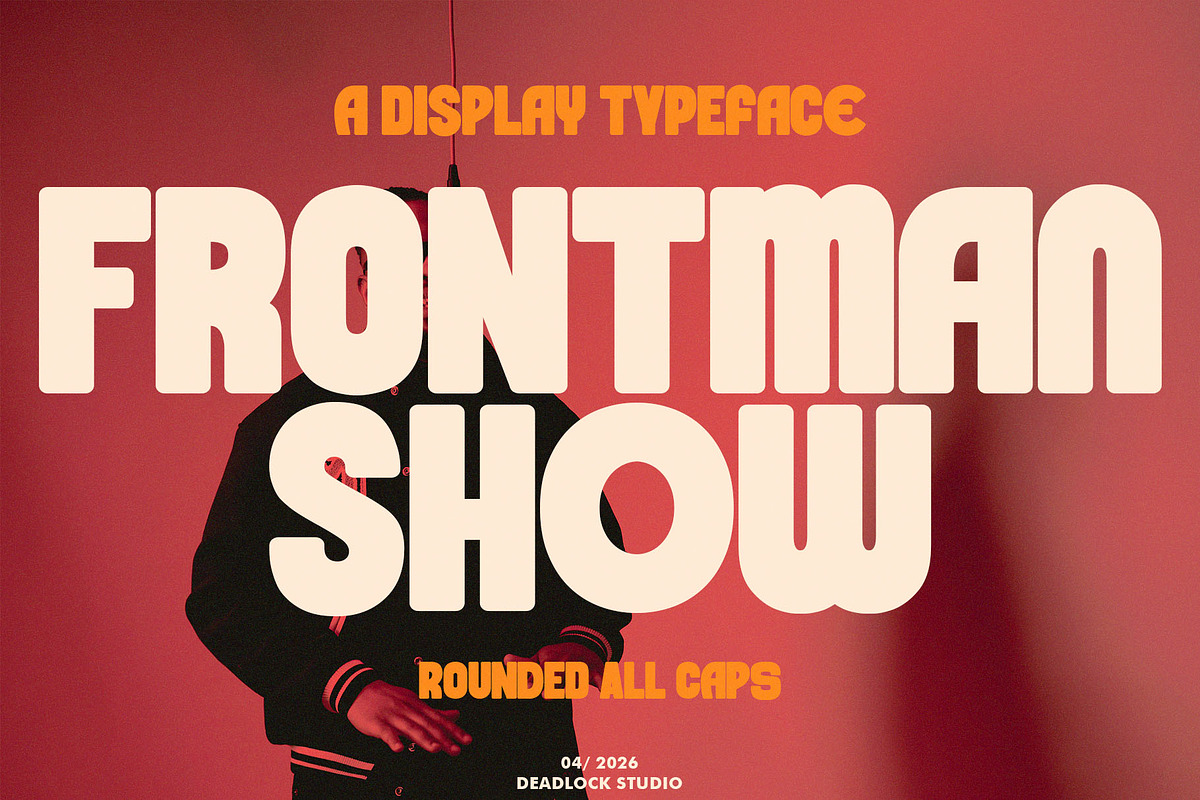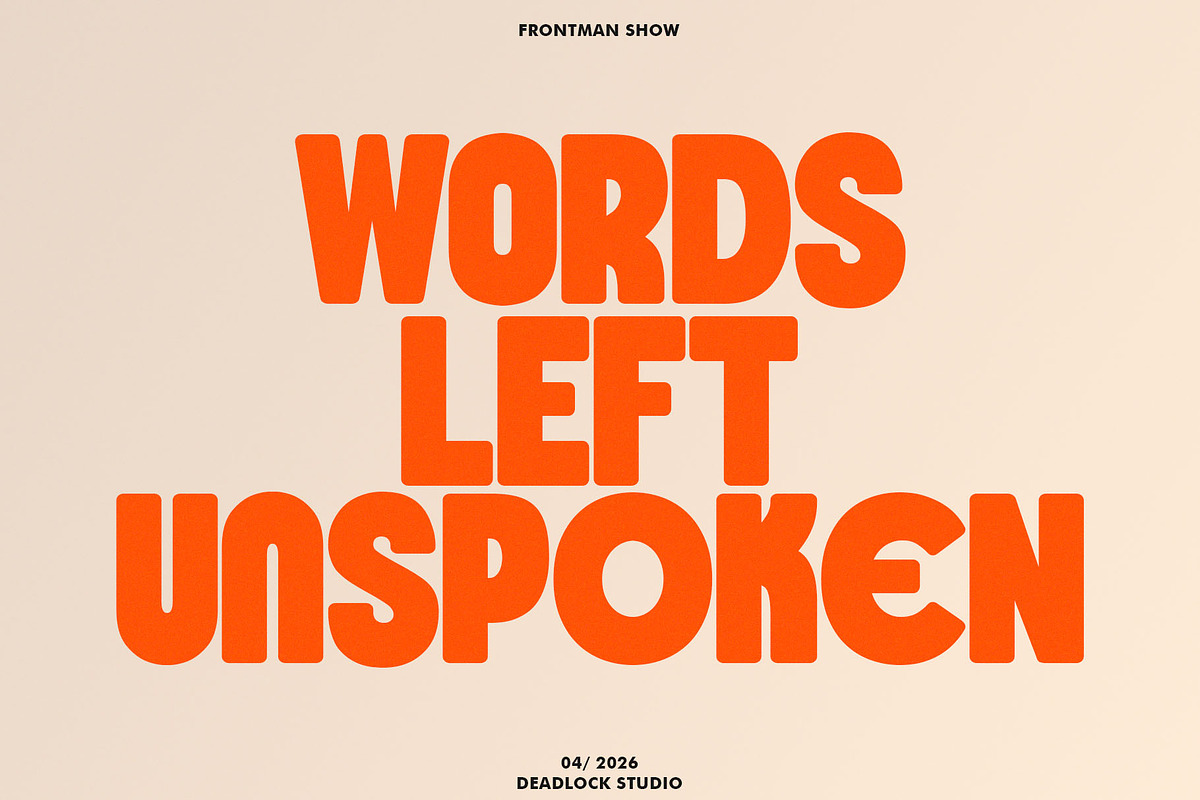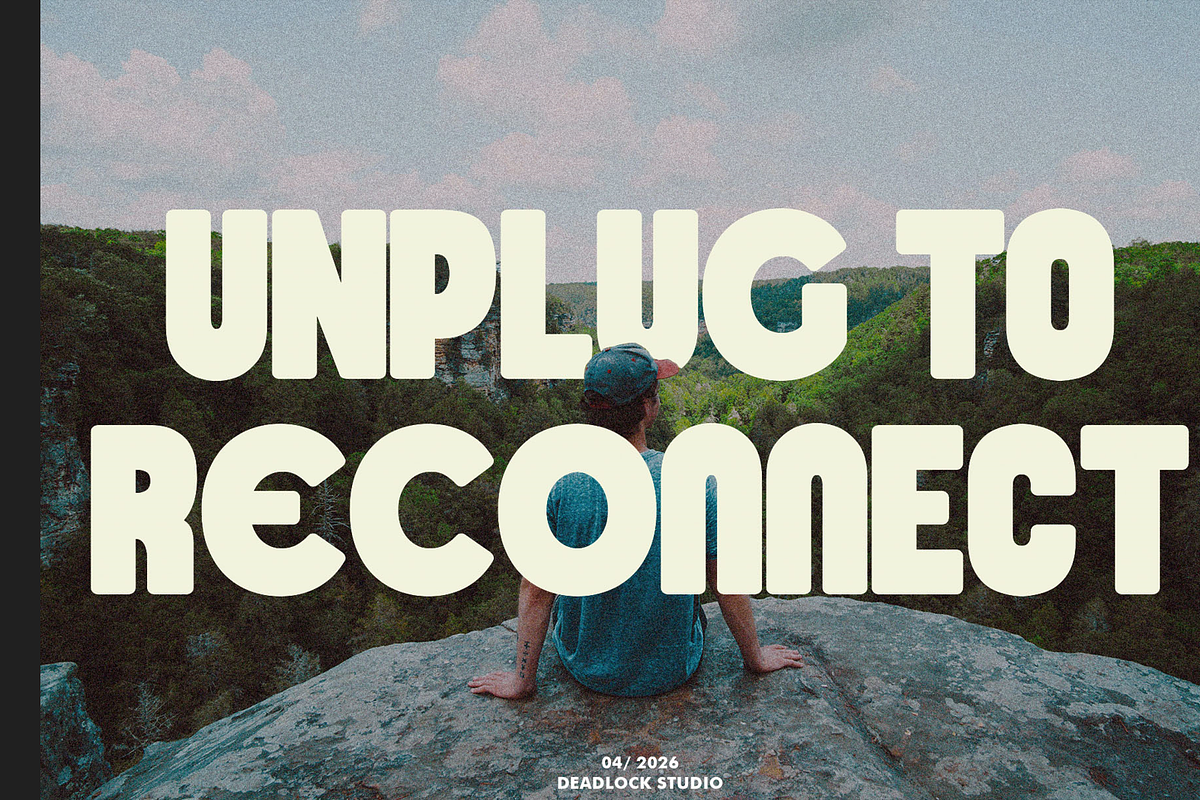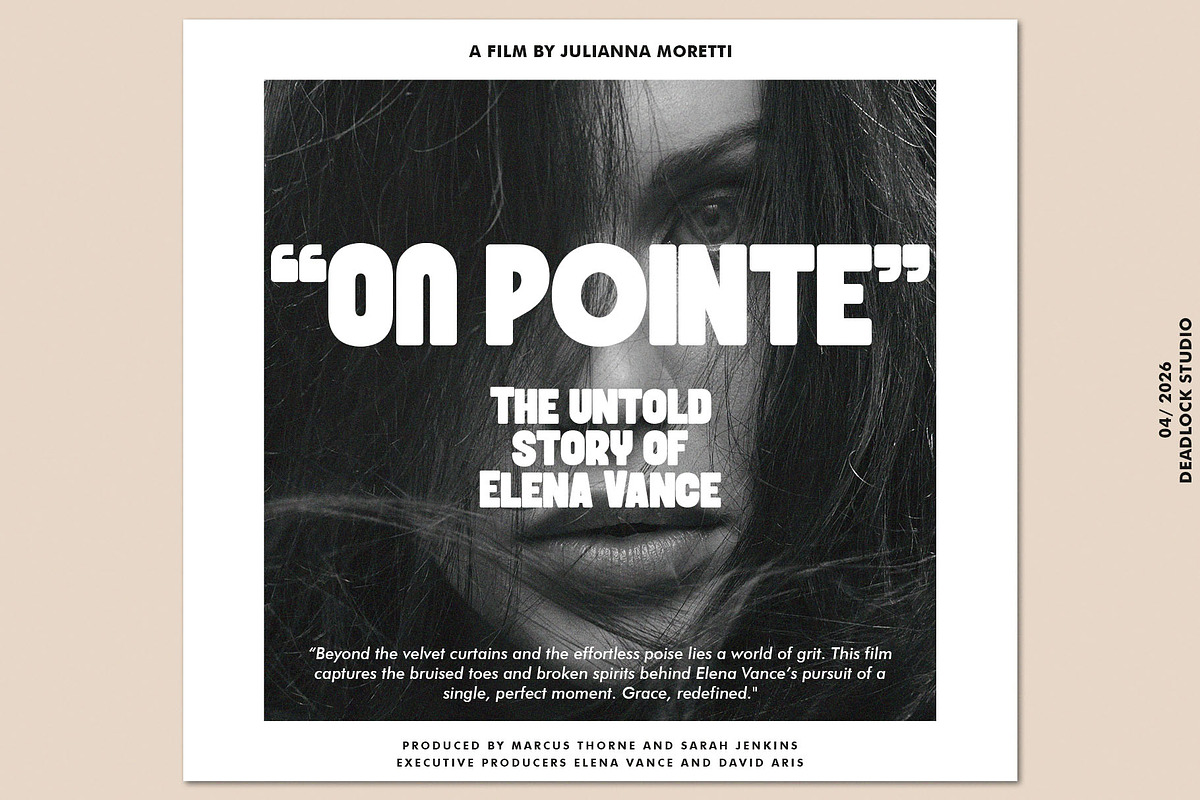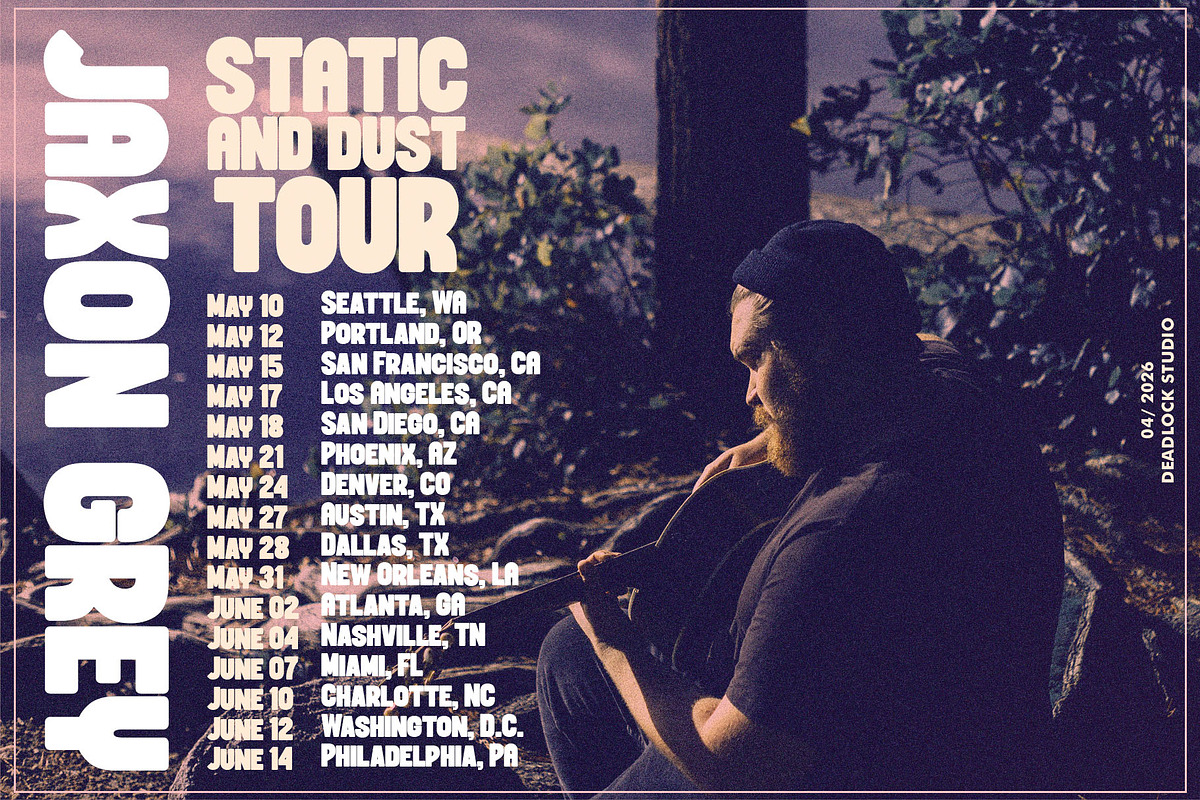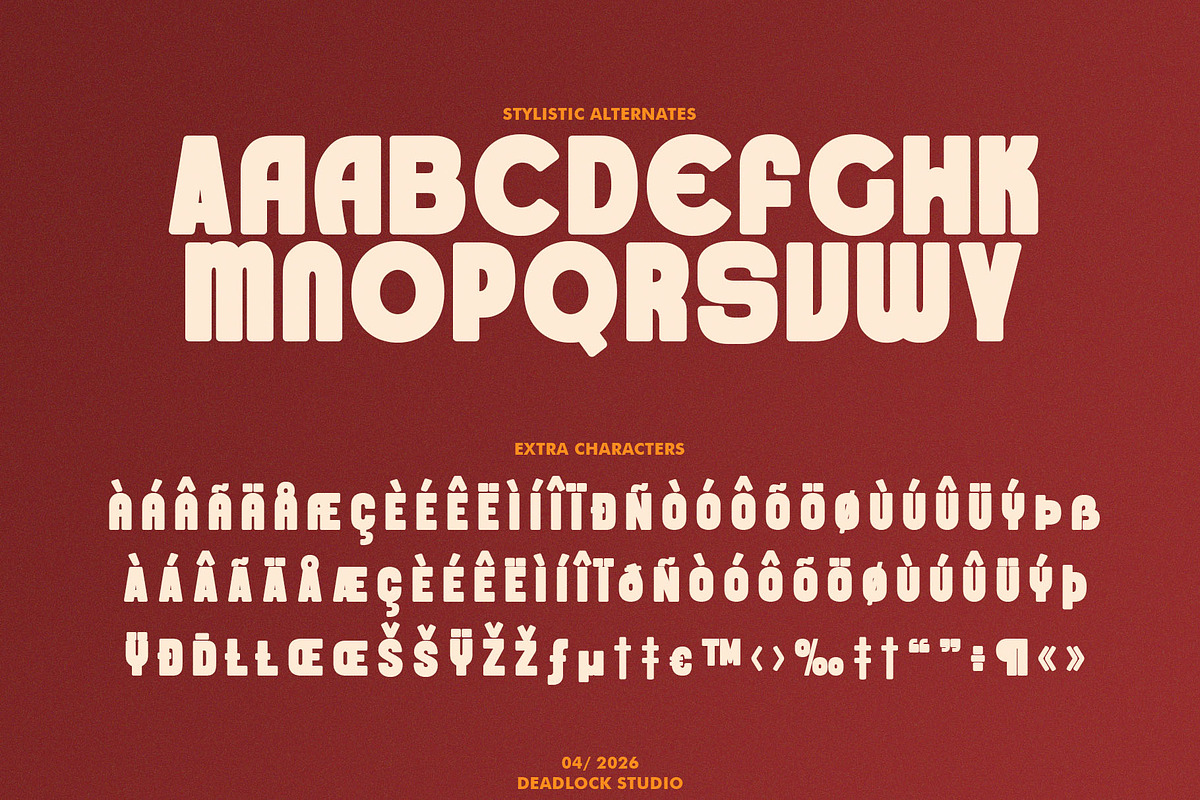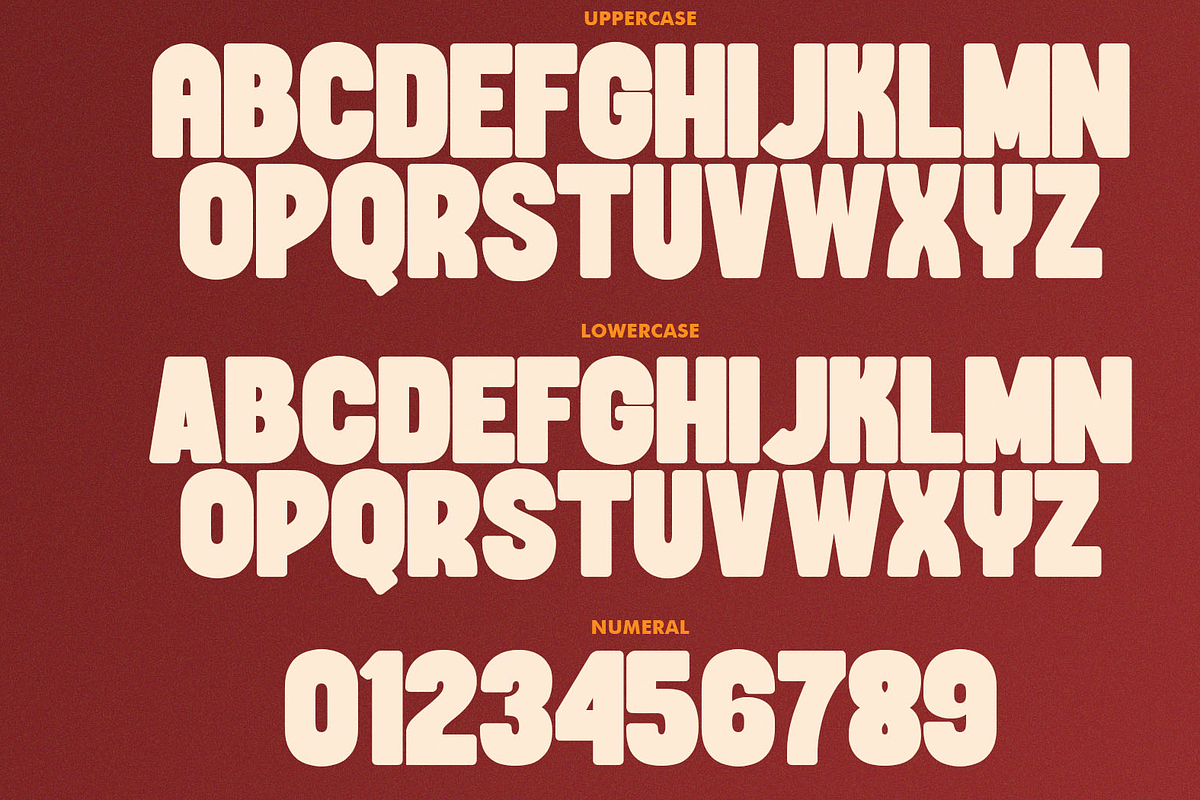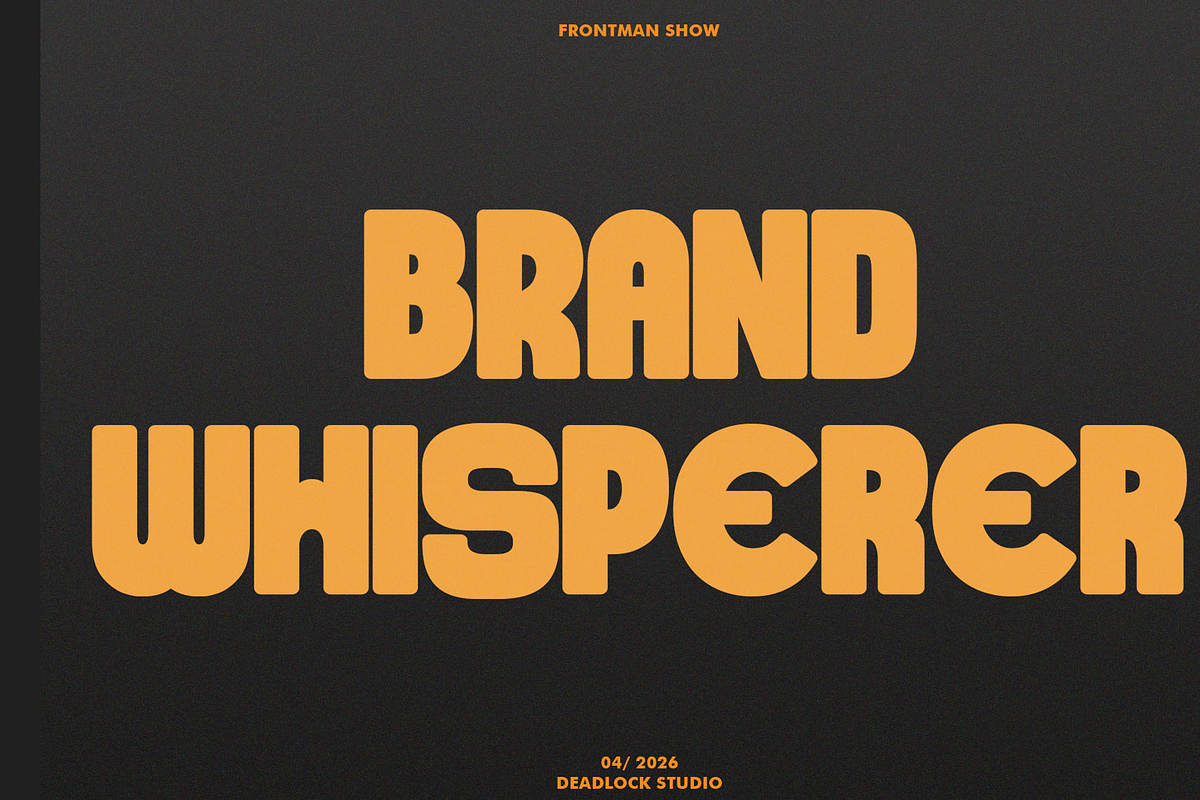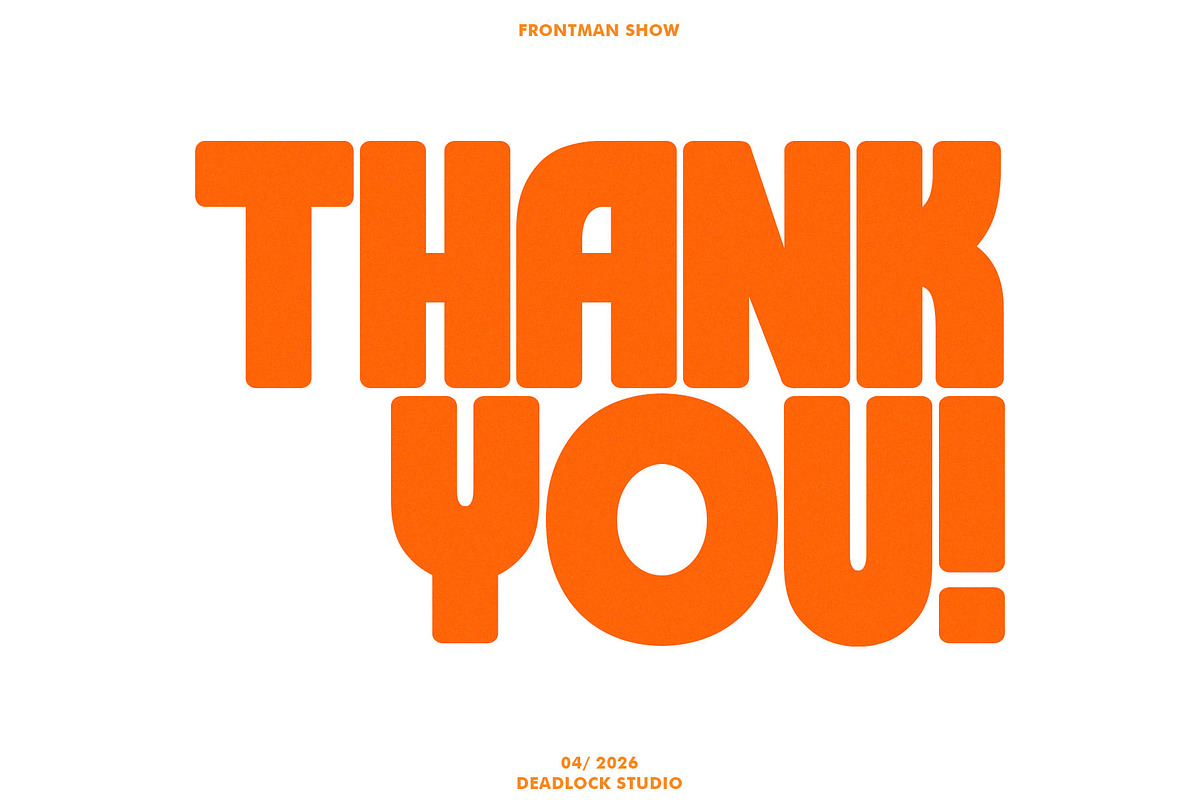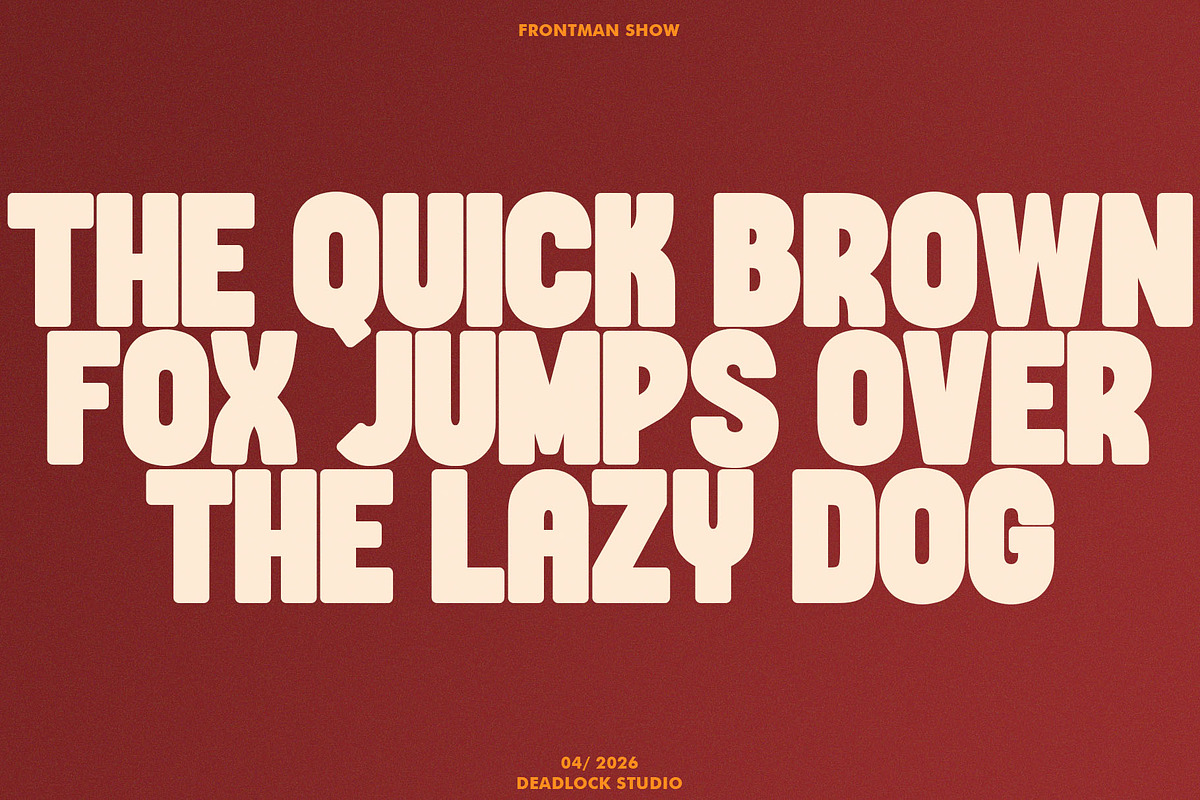
Frontman Show
Introducing FRONTMAN SHOW, a bold and commanding all-caps display font designed to take center stage. With its clean, rounded edges and heavy presence, this typeface strikes the perfect balance between high-impact energy and a friendly, modern aesthetic.
Frontman Show is built for headlines, posters, and any project that demands a standout visual. It features a complete set of standard characters, numbers, and Stylistic Sets to give you versatile layout options.